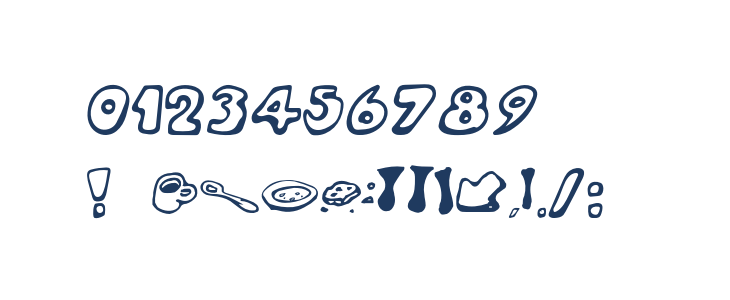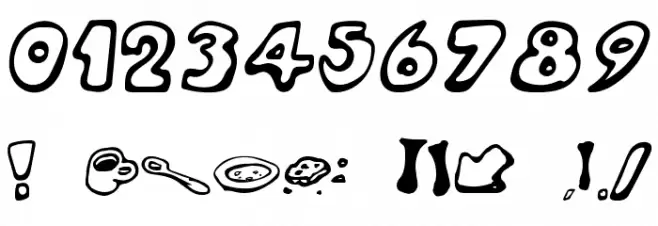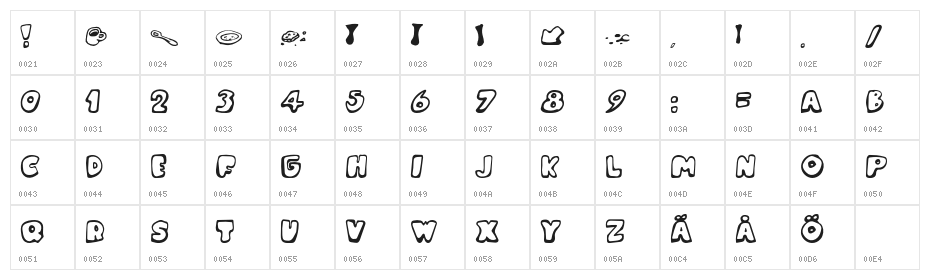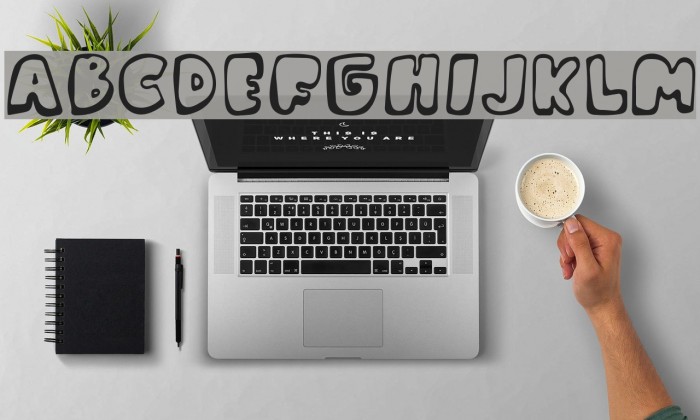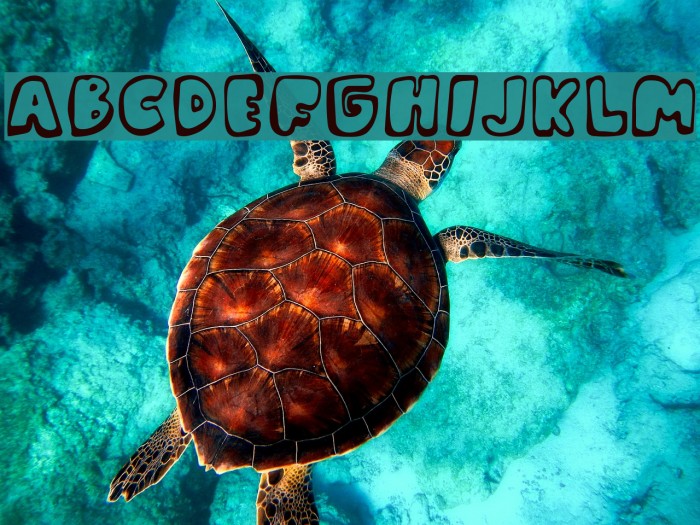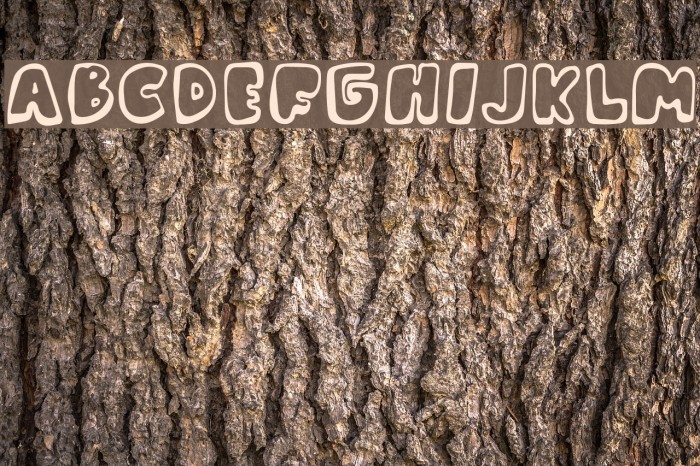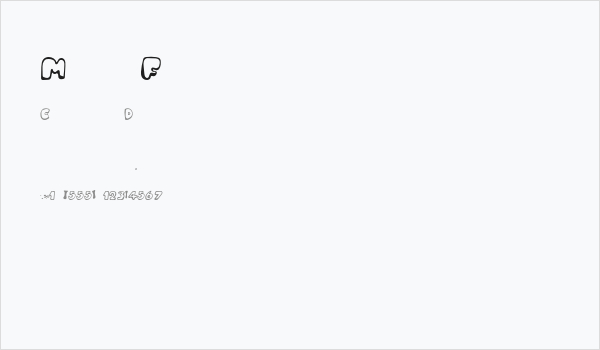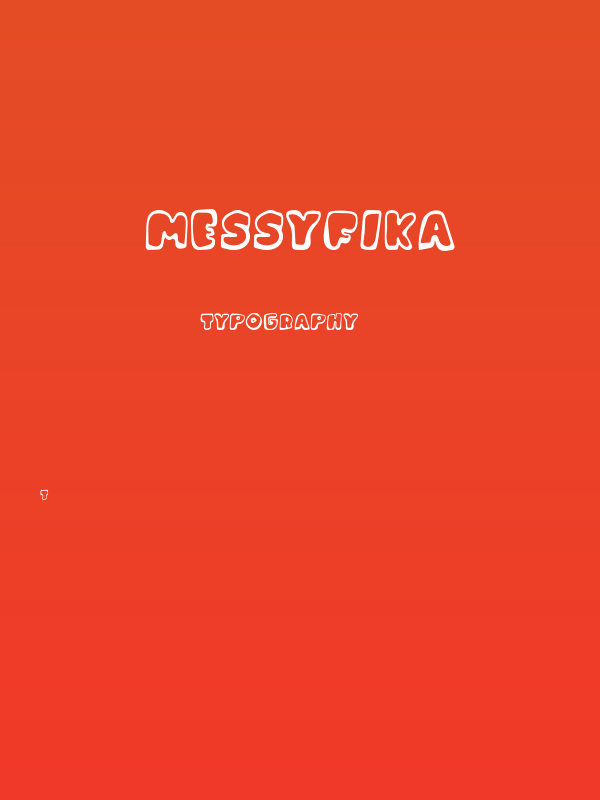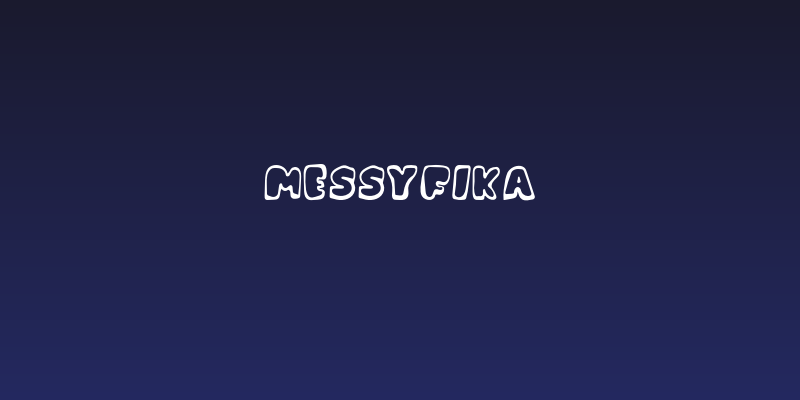
MessyFika Font
MessyFika Description
This playful and whimsical font features bold, rounded characters with a hand-drawn appearance. Each letter and number is outlined with a thick, uneven stroke, giving it a cartoonish and informal vibe. The font includes a set of quirky special characters that resemble everyday objects, adding to its charm and uniqueness. The overall style is casual and fun, making it ideal for projects that require a lighthearted and friendly touch. The characters are slightly irregular, enhancing the font's handmade feel, while maintaining legibility.
A playful, hand-drawn font with bold, rounded characters and quirky special symbols from Uncategorized fonts.
- Proposed Projects: Ideal for children's books, playful branding, casual invitations, and creative posters.
- Overall Style: Playful, Casual
- Use Case: Headlines, Posters, Branding